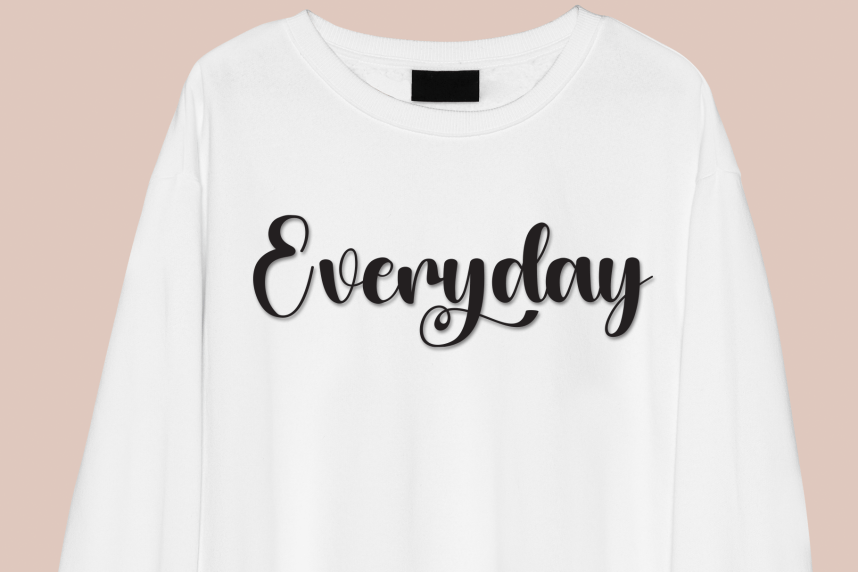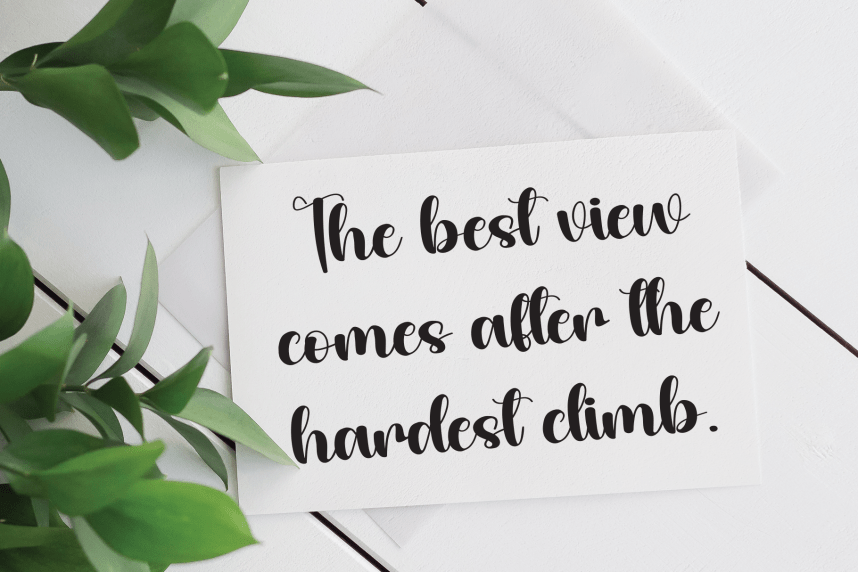
Magic Journal Script Font
Magic Journal Script Font is a sweet and friendly handwritten display font. Cute and fun, this font is ideal for writing wedding invitations, cards, or any other design that might need a playful touch!